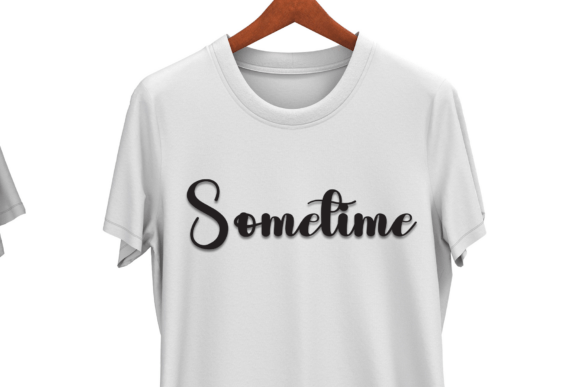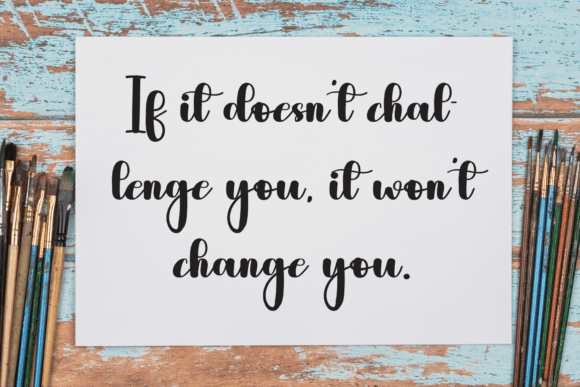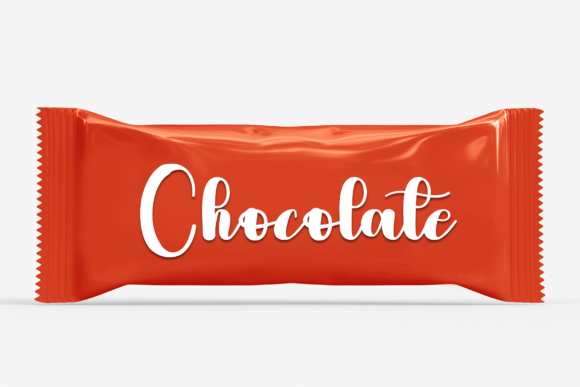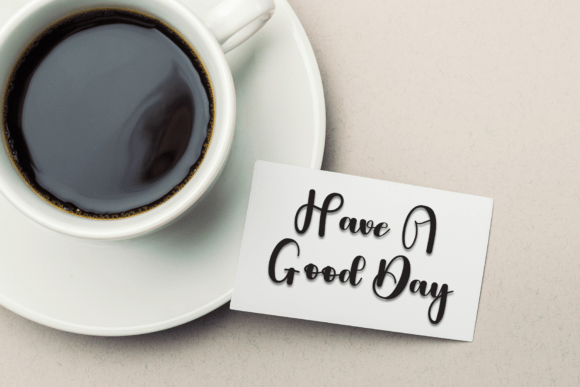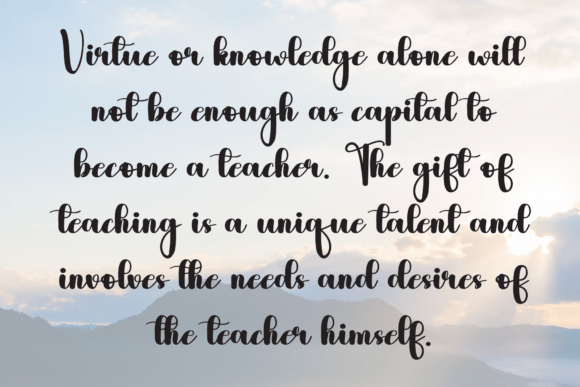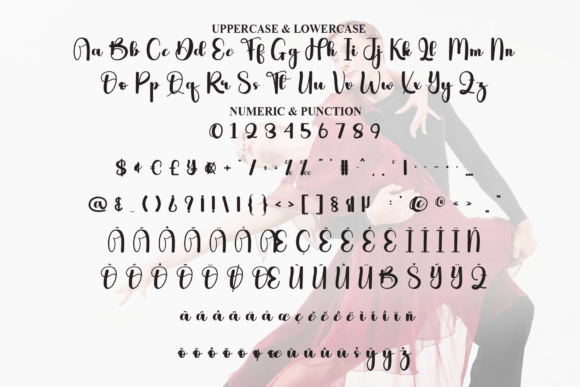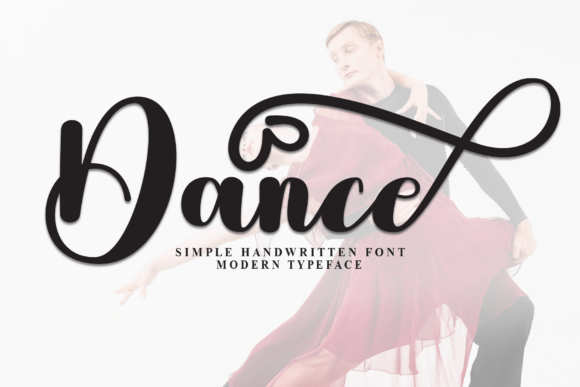
Dance Font: Elevate Your Designs with Elegance and Freshness
Are you a designer or crafter looking for a typeface that exudes elegance, freshness, and creativity? Look no further than Dance Font, a stylish handwritten script font that is sure to capture the essence of your designs. With its graceful strokes and flowing curves, Dance Font adds a delicate, personal touch to invitations, branding, and stationery, making it the perfect choice for those who want to bring beauty, warmth, and creativity to their work.
The Characteristics of Dance Font
Dance Font is a beautifully crafted handwritten script font that boasts a range of characteristics that set it apart from other typefaces. Its most notable features include:
- Fluid curves and strokes: Dance Font’s flowing curves and strokes give it a sense of movement and fluidity, making it perfect for designs that require a touch of elegance and sophistication.
- Elegant and refined: This typeface is designed to exude elegance and refinement, making it ideal for high-end branding, invitations, and stationery.
- Handwritten feel: Despite its refined appearance, Dance Font still retains a handwritten feel that adds a personal touch to any design.
- Versatile: Dance Font is a versatile typeface that can be used in a range of design applications, from digital designs to print materials.
Uses for Dance Font
Dance Font’s versatility and elegance make it suitable for a wide range of design applications, including:
- Invitations: Whether you’re designing wedding invitations, birthday party invites, or baby shower announcements, Dance Font is the perfect choice.
- Branding: Use Dance Font to create elegant and sophisticated brand identities that exude refinement and luxury.
- Stationery: Add a touch of elegance to your stationery designs, including letterheads, business cards, and envelopes.
- Digital designs: Dance Font can also be used in digital designs, such as social media graphics, blog headers, and website titles.
Tips for Using Dance Font
To get the most out of Dance Font, here are a few tips to keep in mind:
- Pair with contrasting fonts: Pair Dance Font with contrasting fonts, such as bold sans-serif fonts, to create visual interest and hierarchy.
- Experiment with colors: Dance Font looks great in a range of colors, from soft pastels to rich jewel tones. Experiment with different colors to find the perfect combination for your design.
- Use it sparingly: While Dance Font is elegant and refined, it can be overwhelming if used excessively. Use it sparingly to add a touch of elegance to your design.
Why Choose Dance Font?
So why choose Dance Font over other typefaces? Here are just a few reasons:
- Unique and distinctive: Dance Font’s unique and distinctive style sets it apart from other typefaces, making it perfect for designers who want to create something truly special.
- Elegant and refined: This typeface exudes elegance and refinement, making it perfect for high-end designs.
- Easy to read: Despite its elegant appearance, Dance Font is easy to read, making it perfect for body text and other applications where legibility is important.
In conclusion, Dance Font is a stylish handwritten script font that is perfect for designers and crafters who want to add a touch of elegance and freshness to their designs. With its fluid curves and strokes, elegant appearance, and versatile uses, Dance Font is sure to become a go-to typeface in your design arsenal. So why not give it a try and see how it can elevate your designs?